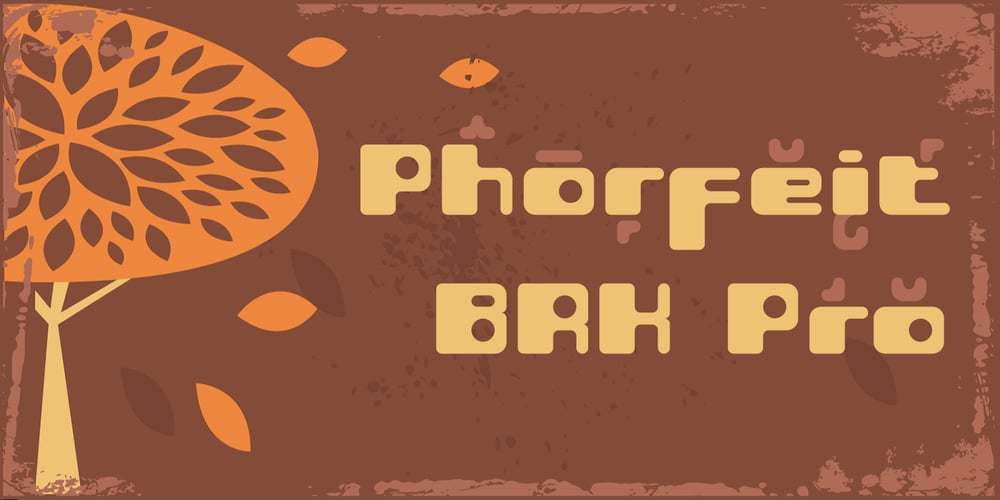
Phorfeit BRK Pro Font Family was designed by Roger S. Nelsson, Brian Kent and published by CheapProFonts. Phorfeit BRK Pro contains 2 styles and family package options. Part futuristic + part rounded = totally psychedelic. This font is perfect for that 70s hippie look. I have totally redrawn the outlines, and redesigned a couple of glyphs that were too “mechanical”. the slanted version has a 20 degree slant, and this speedier variant of Phorfeit BRK Pro is ready for use (for those who use software where you cannot slant the upright version yourself). ALL fonts from CheapProFonts have very extensive language support: They contain some unusual diacritic letters (some of which are contained in the Latin Extended-B Unicode block) supporting: Cornish, Filipino (Tagalog), Guarani, Luxembourgian, Malagasy, Romanian, Ulithian and Welsh. They also contain all glyphs in the Latin Extended-A Unicode block (which among others cover the Central European and Baltic areas) supporting: Afrikaans, Belarusian (Lacinka), Bosnian, Catalan, Chichewa, Croatian, Czech, Dutch, Esperanto, Greenlandic, Hungarian, Kashubian, Kurdish (Kurmanji), Latvian, Lithuanian, Maltese, Maori, Polish, Saami (Inari), Saami (North), Serbian (latin), Slovak(ian), Slovene, Sorbian (Lower), Sorbian (Upper), Turkish and Turkmen. And they of course contain all the usual “western” glyphs supporting: Albanian, Basque, Breton, Chamorro, Danish, Estonian, Faroese, Finnish, French, Frisian, Galican, German, Icelandic, Indonesian, Irish (Gaelic), Italian, Northern Sotho, Norwegian, Occitan, Portuguese, Rhaeto-Romance, Sami (Lule), Sami (South), Scots (Gaelic), Spanish, Swedish, Tswana, Walloon and Yapese.